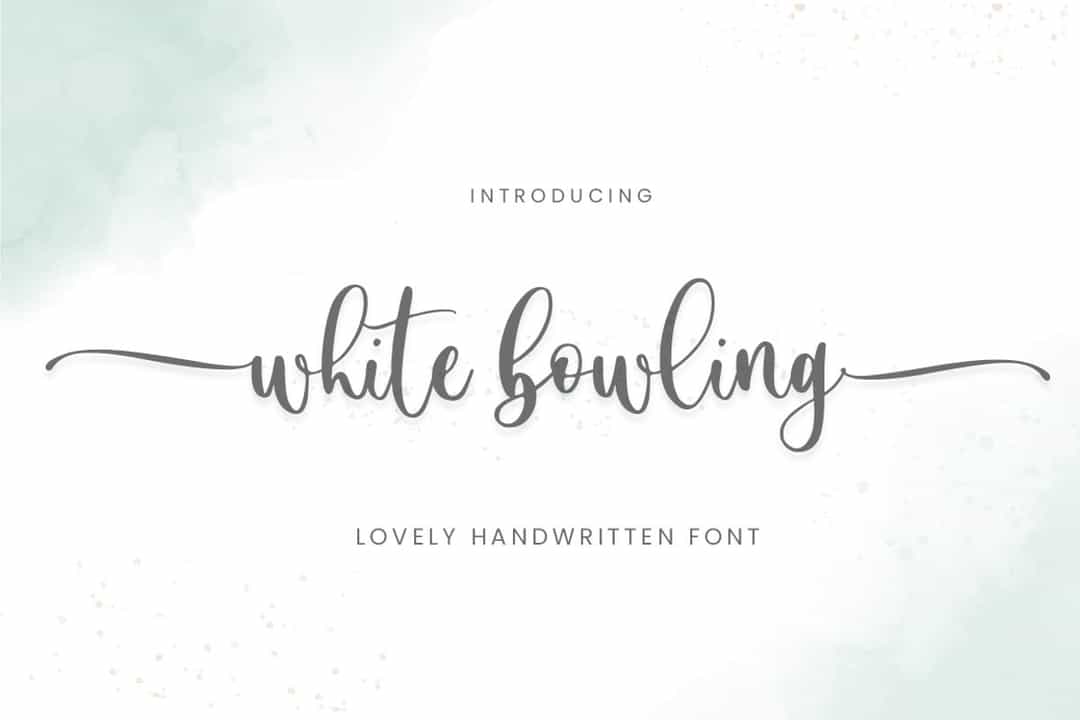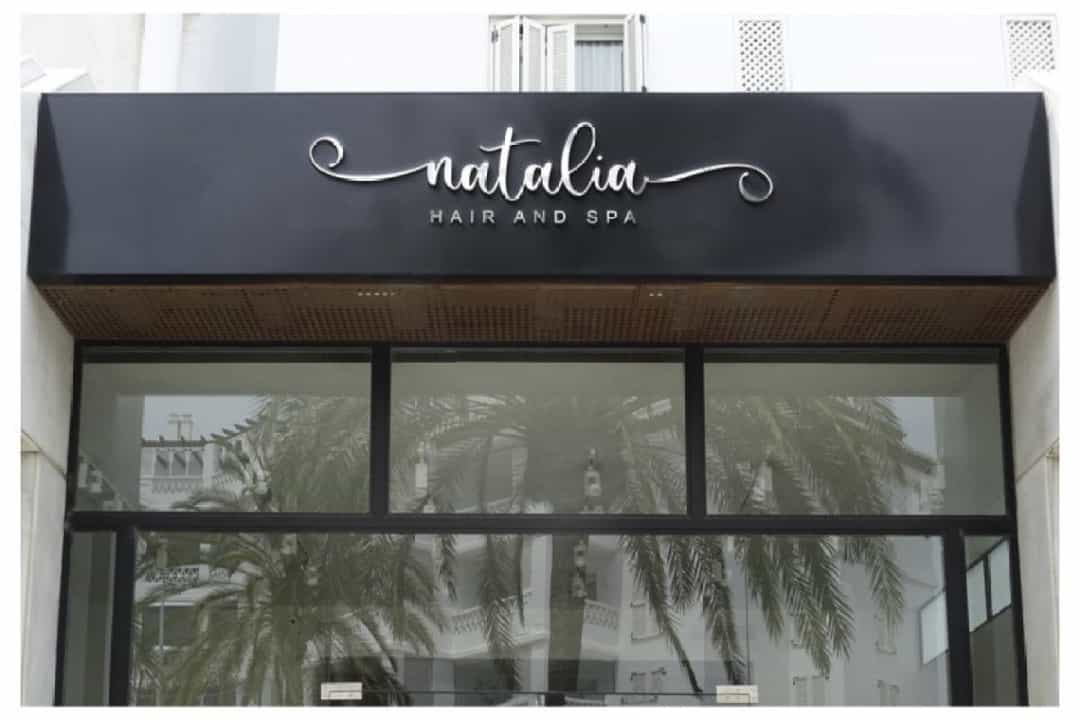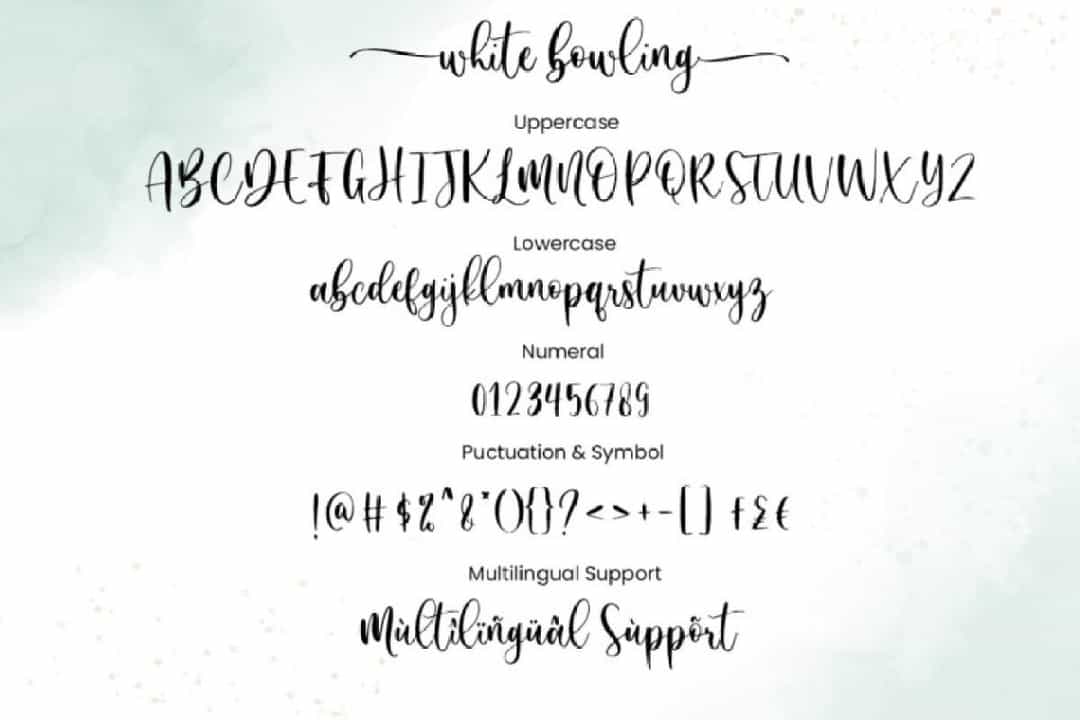
Discover White Bowling Font, part of the Calligraphy Handwritten Script Personal collection—a versatile and unique font perfect for adding a personal touch to your projects. Download it for free and enjoy crafting designs with style, from invitations to social media posts. This font is available exclusively for personal use, giving you the freedom to create without limits. Unlock your creativity with White Bowling Font today!
White Bowling is the perfect handwriting font that can be used in brand logo designs, invitations and stationery, wedding designs, advertisement, social media posts, packaging designs, labels, watermark of photographs or any special occasion.